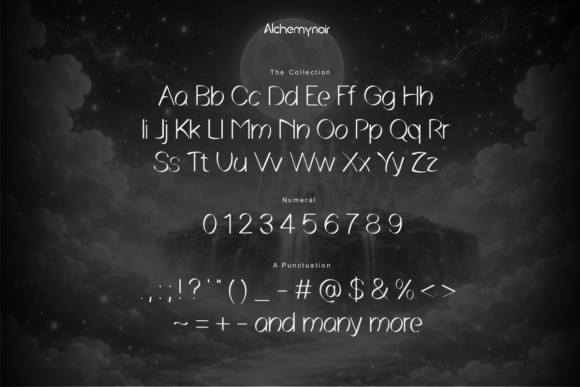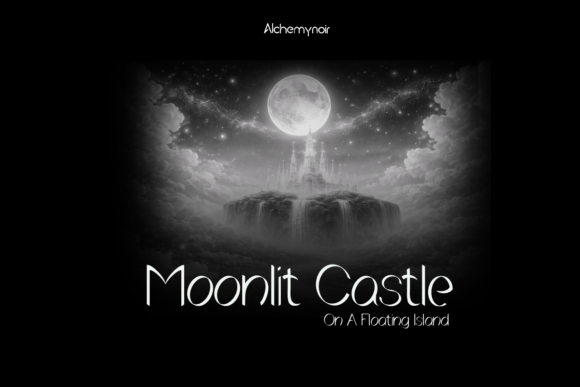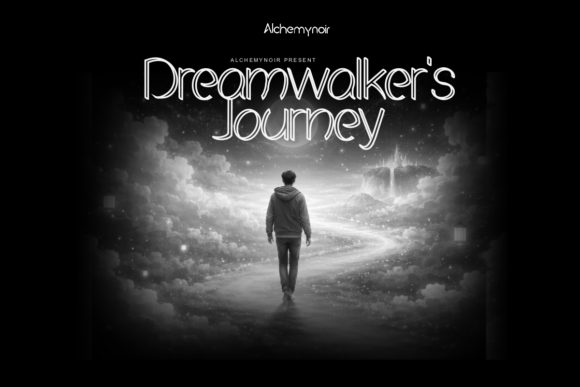
A Dream Walker Font: Where Art Meets Innovation
Have you ever found yourself lost in the depths of a blank page, yearning for the perfect font to bring your creative vision to life? You’re not alone. Every designer has been there, searching for that elusive combination of style and substance to elevate their work. For those who dare to dream big, we’re excited to introduce A Dream Walker – an enchantingly distinct font that embodies the essence of innovation and artistic flair.
This exclusive font is more than just a collection of characters; it’s a tool for designers to craft captivating brand identities, posters, and personalized products that leave a lasting impression. By incorporating A Dream Walker Font into your designs, you’ll unlock a world of creative possibilities, amplifying your brand’s mystique and allure. Whether you’re a seasoned pro or just starting out, this frost-inspired artistry is sure to inspire and empower your artistic pursuits.
A Dream Walker Font Key Features
- Unique Characteristics: This font features a unique blend of modern and whimsical elements, with intricate details and subtle flourishes that set it apart from other fonts.
A Dream Walker Font Review
A Dream Walker Font is an interesting and unique font that caught my attention. Here are some of the things that work well:
- ✨ Beautiful, hand-drawn style: The font has a whimsical and artistic feel to it, making it perfect for creative projects or anything that needs a touch of personality.
- ✨ Wide range of language support: A Dream Walker Font supports a wide range of languages, making it a great choice for global projects.
- ✨ Highly customizable: The font is available in various weights and styles, allowing users to customize it to suit their needs.
- ⚠️ Limited legibility: The font’s unique style can sometimes make it difficult to read, especially in smaller sizes or when used for large blocks of text.
- ⚠️ Not ideal for body text: While the font is great for headings or titles, it may not be the best choice for body text due to its playful and attention-grabbing nature.
Overall, A Dream Walker Font is a great choice for projects that need a touch of creativity and personality. While it may not be suitable for all types of projects, it’s definitely worth considering for those that require a unique and eye-catching font.